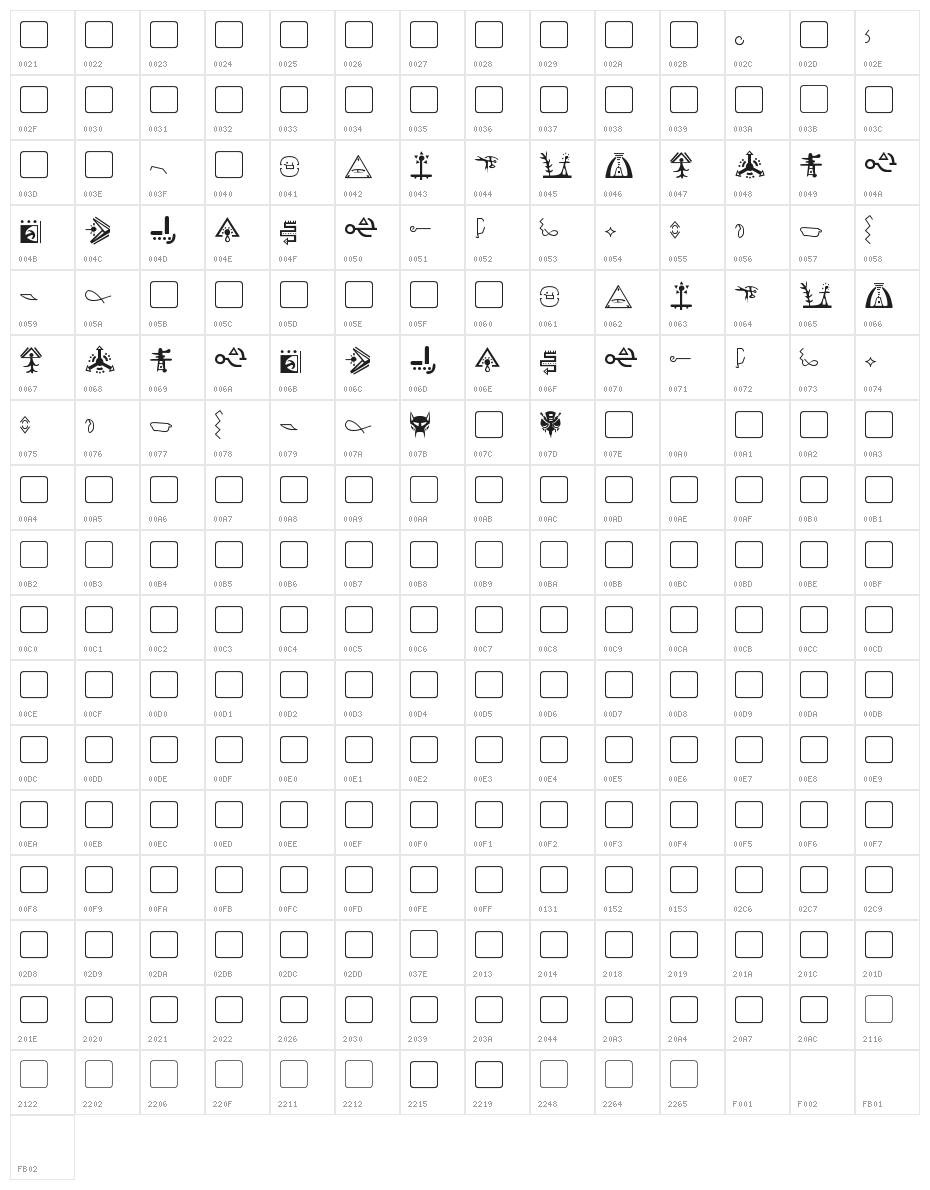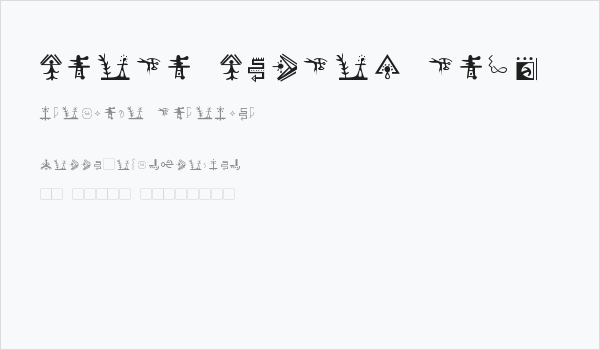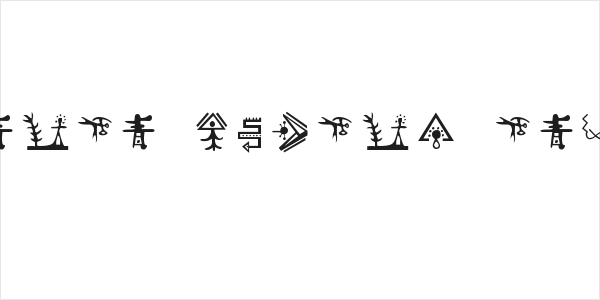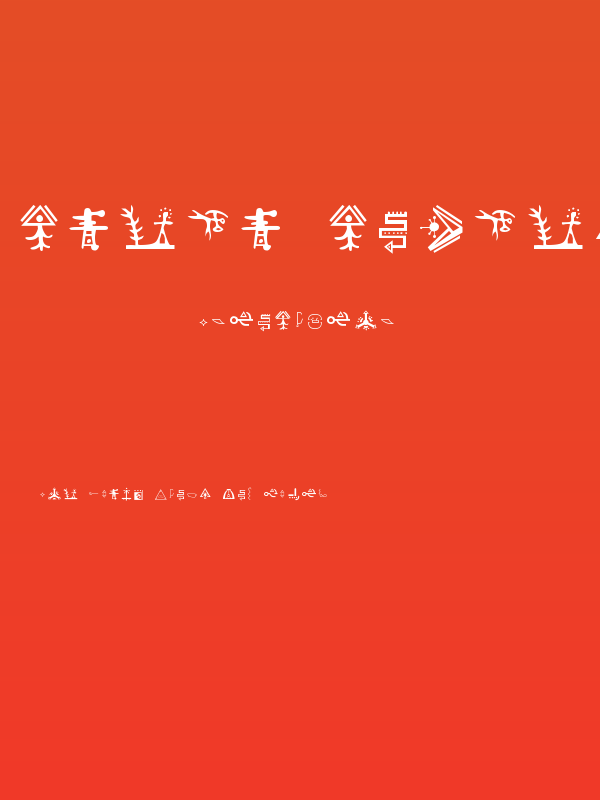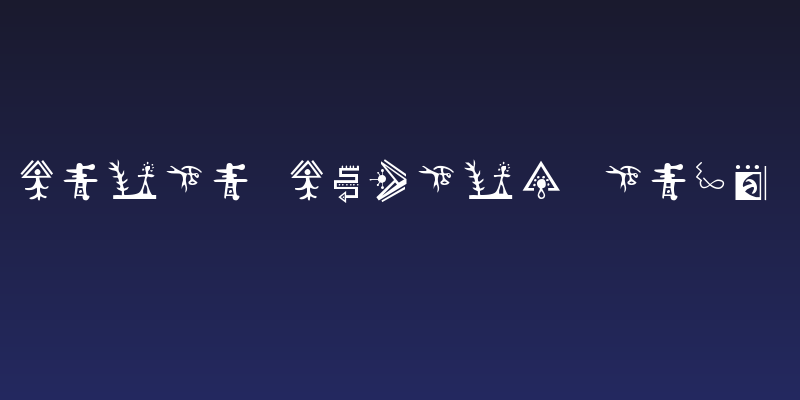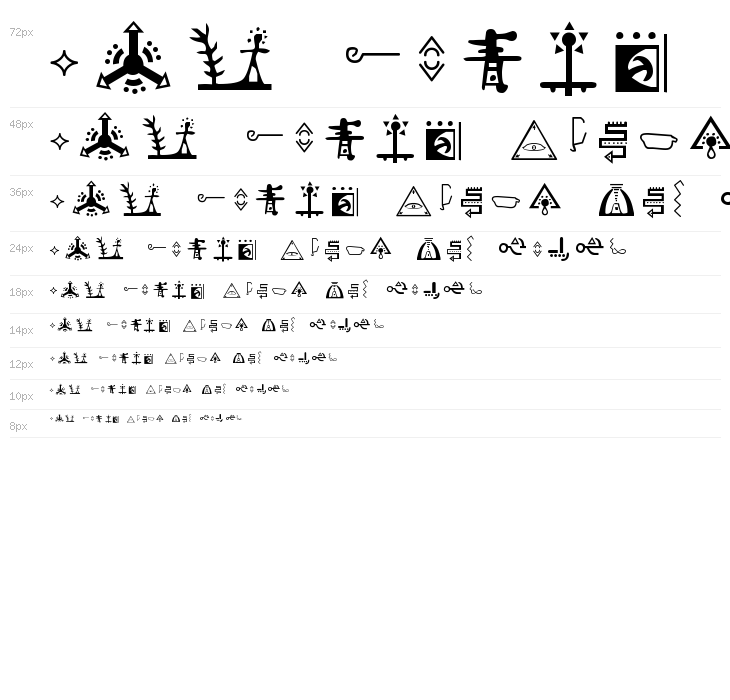
Giedi Golden Disk Font
Giedi Golden Disk Description
This set of symbols appears to be a collection of abstract and geometric shapes, possibly inspired by ancient or extraterrestrial motifs. The characters are highly decorative, with intricate details and varying line thicknesses. Each symbol is unique, featuring elements such as triangles, circles, and lines that intersect or form complex patterns. The overall appearance is reminiscent of hieroglyphs or symbolic art, suggesting a purpose beyond traditional text representation. The design is visually striking, with a sense of mystery and otherworldliness.
Use CaseLogos, Artistic designs, Fictional languages
Proposed ProjectsIdeal for use in artistic projects, such as creating unique logos, designing themed posters, or developing fictional languages for games and films.